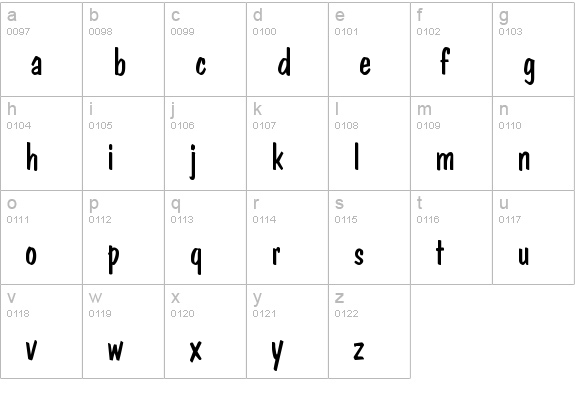
Dominican Regular Font Details
Dominican Regular is the standard, neutral variant in the Dominican typeface family \xE2\x80\x94 well suited to general body text, paragraphs, and standard typographic work.
Dominican Regular font is a versatile and stylish typeface that exudes elegance and sophistication. With its clean lines and classic design, this font is perfect for a wide range of projects, from branding and advertising to invitations and signage. The timeless appeal of Dominican Regular makes it a popular choice for designers looking to add a touch of class to their work. The best part? Dominican Regular font is completely free to download at FontsMarket.com. Whether you're a professional designer or a hobbyist looking to enhance your projects, this font is a valuable addition to your collection. Don't miss out on the opportunity to access this high-quality and beautifully crafted font at no cost. Download Dominican Regular today and elevate your designs with its timeless charm and sophistication.